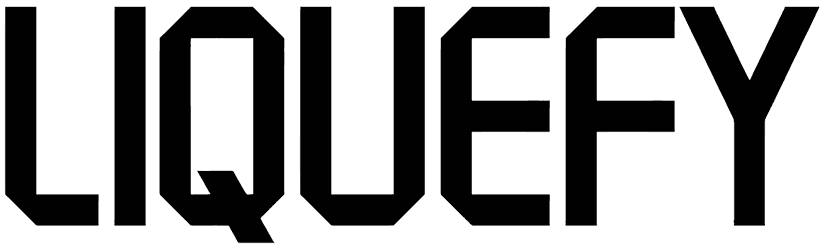
Ultramoon Font
Ultramoon is a marvelous cartoon font that comes with a geometrical style and looks too captivating for any kind of creative idea. Since this all-caps square font comes with a sense of dynamic, modernity, jauntiness, or vitality, it can easily boost the visibility of your content.
Aside from the lack of numbers, we invite you to include this masterpiece in your projects, such as flyers, stickers, movie posters, product packaging, or magazines. Also, visit our archive for daily updates.
Designed by: Calligraphy Fonts